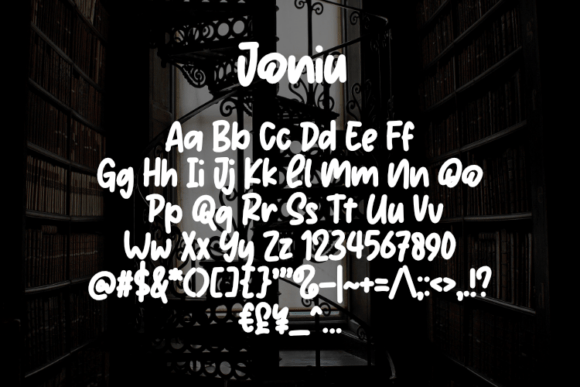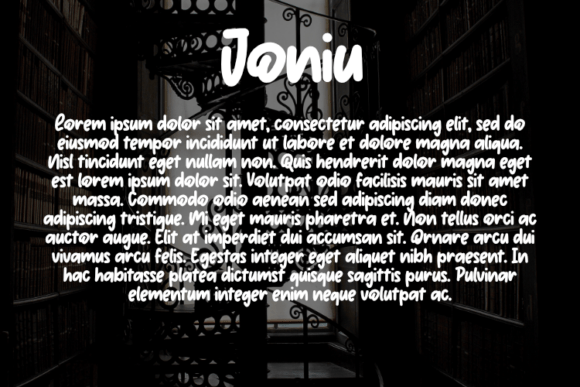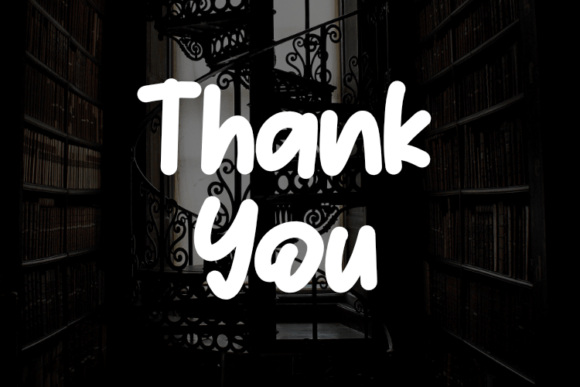
Introduction to Joniu Font
Have you ever been working on a creative project, pouring your heart and soul into the design, only to have it let down by a poorly chosen font? The difference between a good design and a great one can often come down to the typeface you use. For designers, finding the perfect font can be a challenge, but what if you stumbled upon one that checked all the boxes?
Enter the Joniu Font, a modern and elegant typeface designed for flexibility and excellent readability across a wide range of media. With its .otf (OpenType Font) file format, this font offers superior cross-platform compatibility, making it an ideal choice for all design software and office applications.
Key Features of Joniu Font
- High-quality design resource with a transparent background, ideal for creative projects.
- The font family includes multiple weights and styles, providing flexibility for designers to create a wide range of visual effects.
- Joniu Font is designed with a modern aesthetic, making it perfect for contemporary design projects that require a touch of sophistication.
- The font’s high-resolution design ensures crisp and clear rendering, even at larger font sizes.
Honest Review: Joniu Font
As a designer, I’m always on the lookout for high-quality design resources to elevate my creative projects. Recently, I stumbled upon Joniu Font, and I’m excited to share my honest review with you.
- ✨ Beautiful, elegant design: Joniu Font boasts a stunning, modern aesthetic that’s perfect for a wide range of creative projects.
- ✨ High-quality glyphs: The font features crisp, clear glyphs that are sure to impress.
- ✨ Transparent background: The transparent background option makes it easy to overlay Joniu Font on any image or design element.
- ⚠️ Limited language support: Joniu Font currently only supports a handful of languages, which might be a drawback for designers working on international projects.
- ⚠️ Not suitable for body text: While Joniu Font is perfect for headings and titles, it may not be the best choice for body text due to its elegant, cursive style.
Overall, I’m impressed with Joniu Font’s high-quality design and transparent background. While it has some limitations, it’s a great addition to any designer’s toolkit – especially for creative projects that require a touch of elegance.
Joniu Font
Joniu Font is a high-quality, versatile design resource ideal for a wide range of creative projects. This free download offers a unique and stylish look that can elevate any design.
Getting the Most Out of Joniu Font
To maximize the use of Joniu Font, consider the following tips:
- Use it on a transparent background for a clean and minimalist design.
- Combine Joniu Font with other design elements for a cohesive look.
- Experiment with different font sizes and colors to achieve the desired effect.
Joniu Font is suitable for a variety of projects, including:
- Branding and logo design
- Marketing materials and brochures
Does Joniu Font have a transparent background?
Yes, Joniu Font has a transparent background, allowing you to easily overlay it on images or use it as a design element in your creative projects. This feature makes it a versatile resource for designers who need a high-quality font with a transparent background.